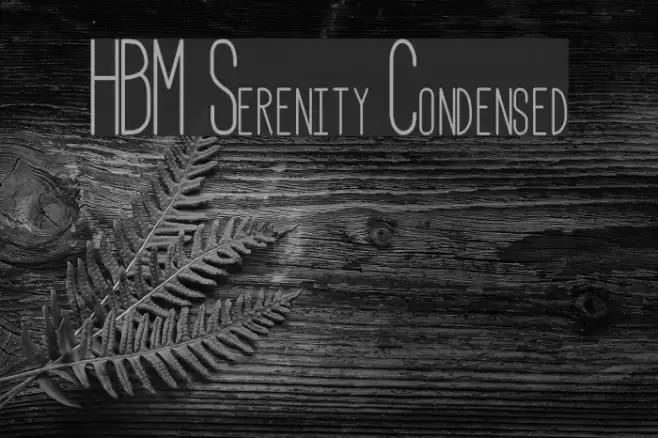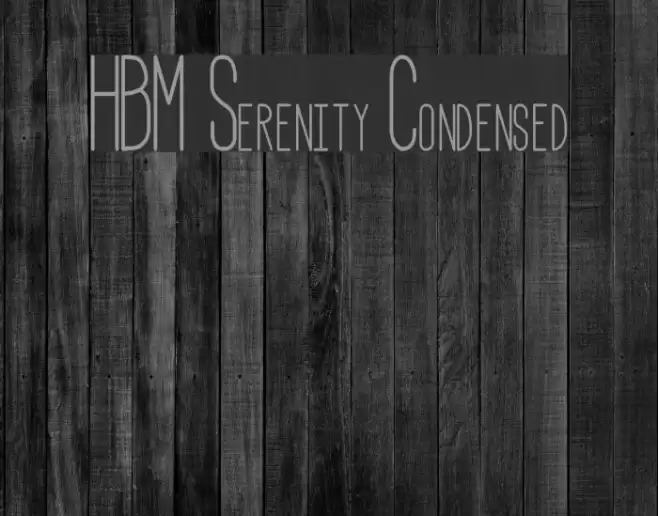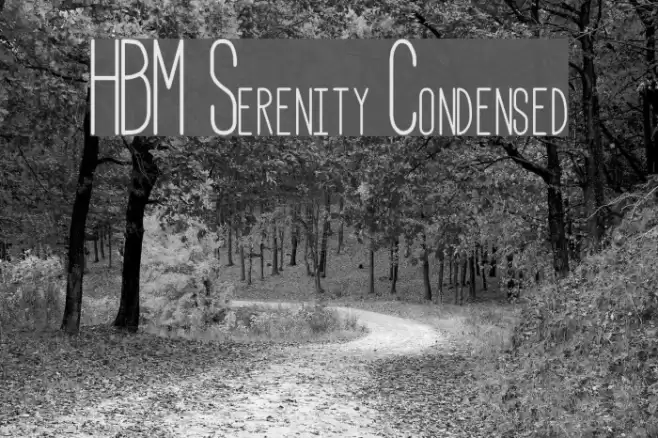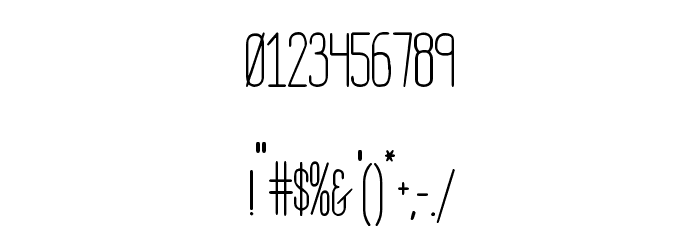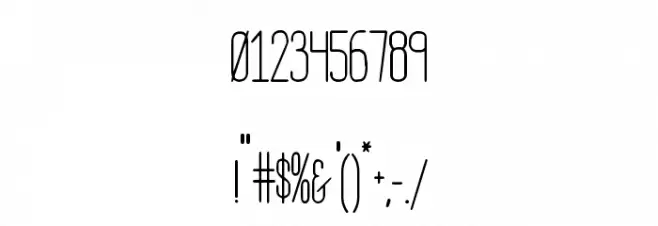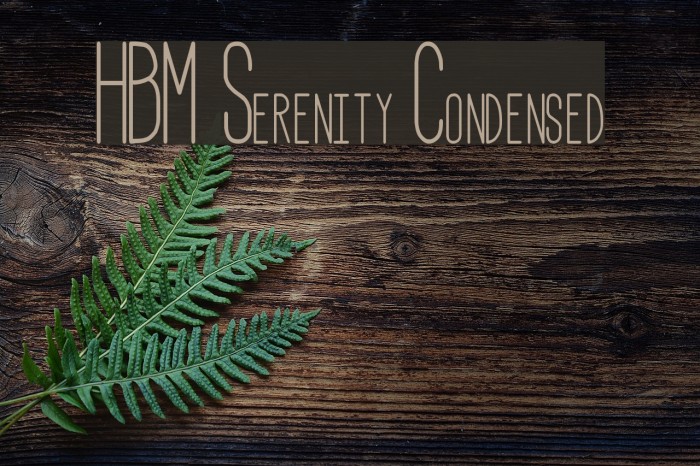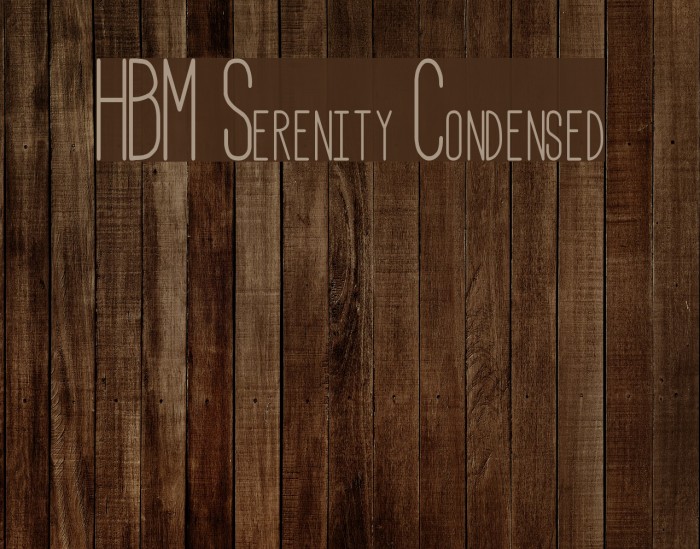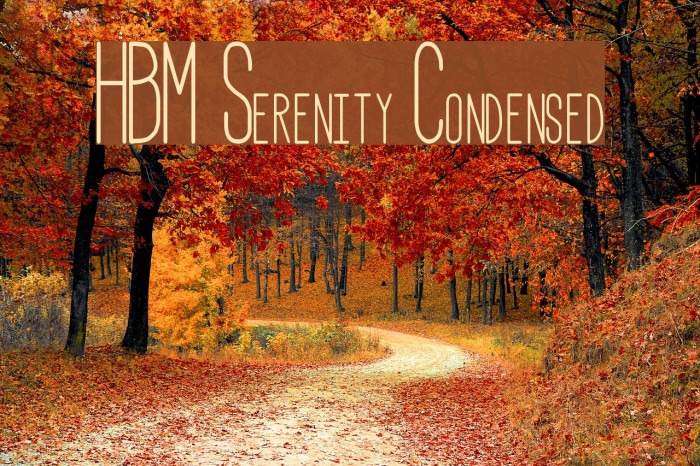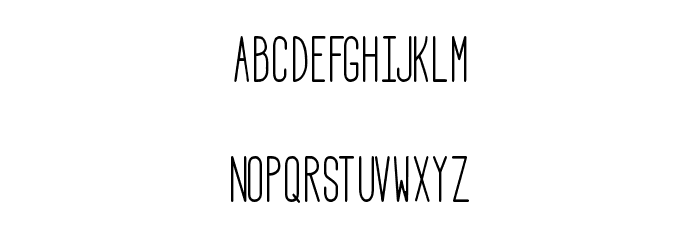
HBM Serenity Condensed Font
HBM Serenity Condensed Description
This font features a tall, narrow design with a modern and clean aesthetic. The characters are elongated and condensed, giving it a sleek and sophisticated appearance. The uppercase and lowercase letters maintain a consistent height, contributing to its uniform look. The numbers and special characters are designed to match the overall style, ensuring a cohesive visual presentation. The font's thin strokes and minimalistic design make it suitable for contemporary projects that require a touch of elegance and simplicity.
A tall, narrow, and modern font with a sleek, minimalistic design from Uncategorized fonts.
- Proposed Projects: Ideal for fashion magazines, modern branding, minimalist posters, and elegant invitations.